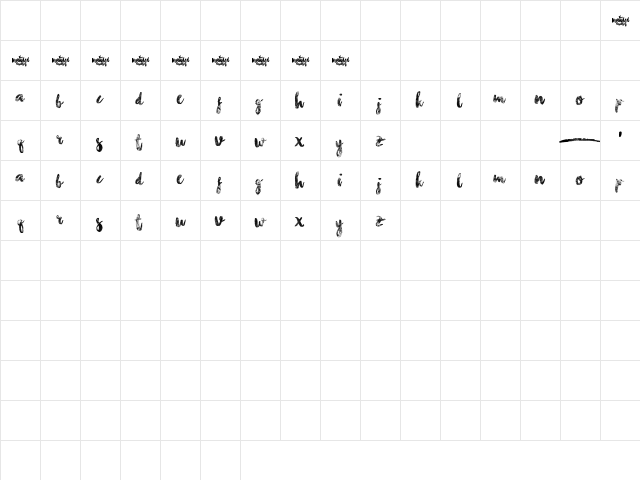
Chasing Embers Demo Version Regular
Designer: The Branded Quotes
Design Context for Chasing Embers Demo Version
Chasing Embers Demo Version is a composed and adaptable typeface that performs quietly and consistently across a wide range of design contexts.